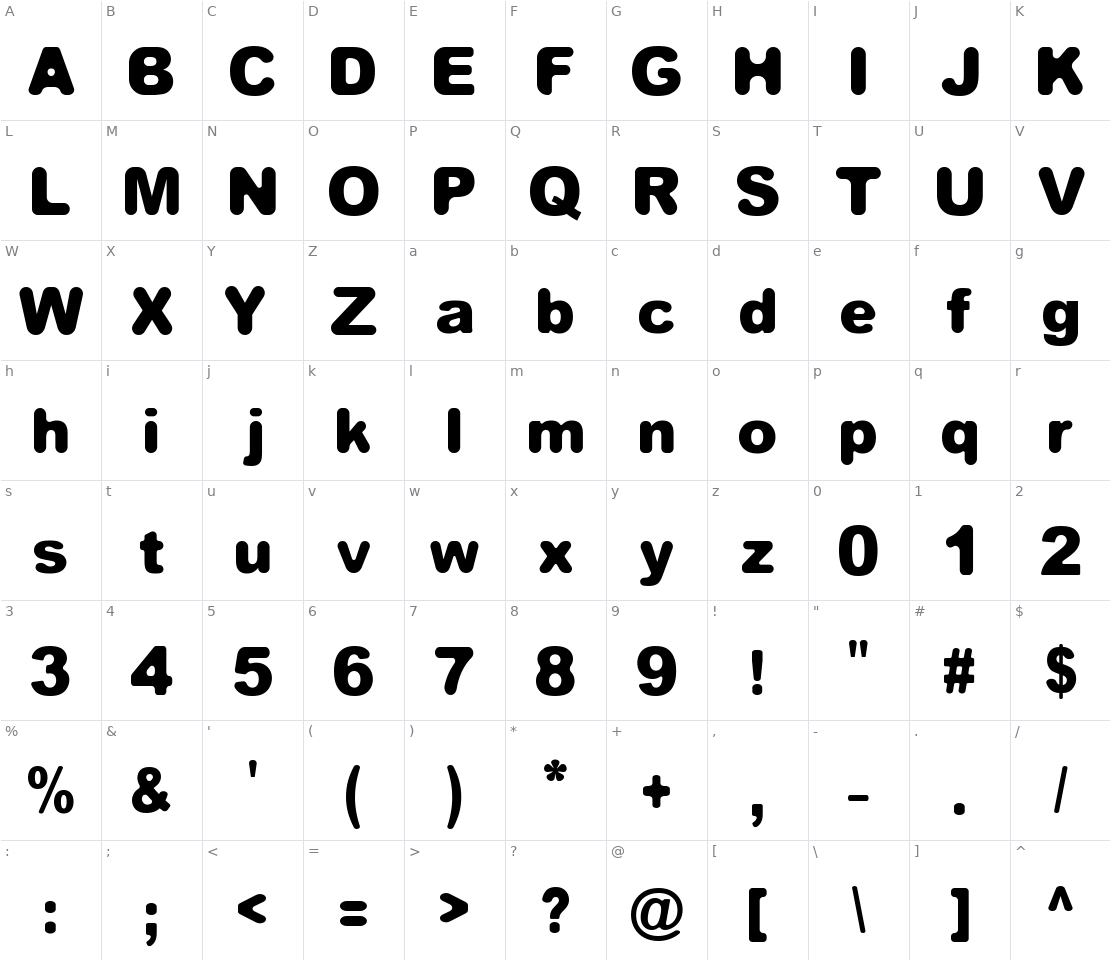
Equivalent
by Chaplin
Equivalent is a bold, heavily rounded geometric display face from Chaplin, with thick strokes and soft curves that keep it feeling approachable despite its visual weight. The letterforms are simple and modern, built from clean circular geometry that gives headlines and titles a friendly, confident presence. Works best at large sizes for branding, posters, and display contexts where you want something that feels solid but never harsh.